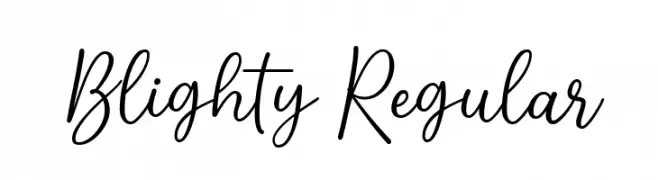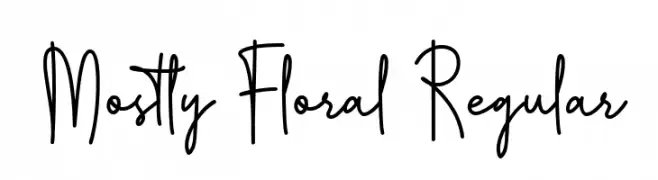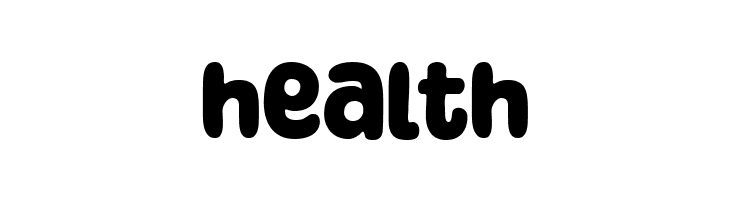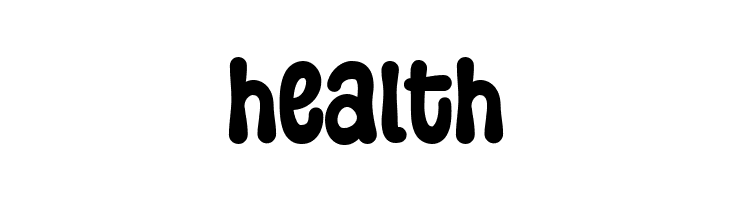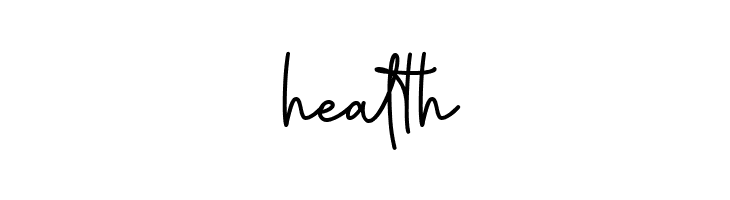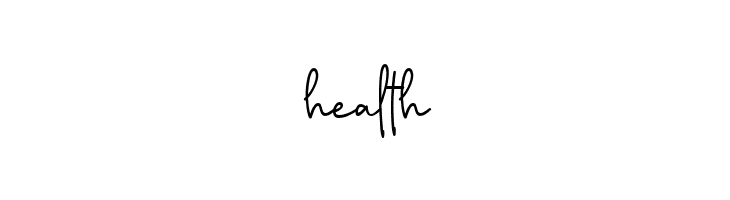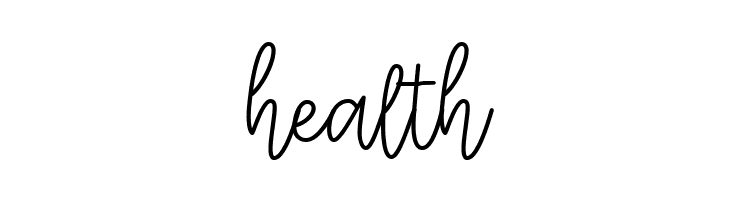
A bold, playful font with rounded, bubbly characters and a retro vibe.
A playful, bold font with rounded, bubbly characters.
A playful, wavy font with bold, rounded strokes and a hand-drawn feel.
A playful, handwritten font with tall, narrow letterforms and a whimsical style.
A playful, casual handwritten font with flowing strokes.
A sophisticated script font with fluid, interconnected strokes and elegant curves.
Elegant script font with fluid, continuous strokes and a modern twist.
An elegant and flowing script font with graceful curves and connected strokes.
A playful and elegant handwritten script font with smooth, fluid strokes.
Playful handwritten script font.